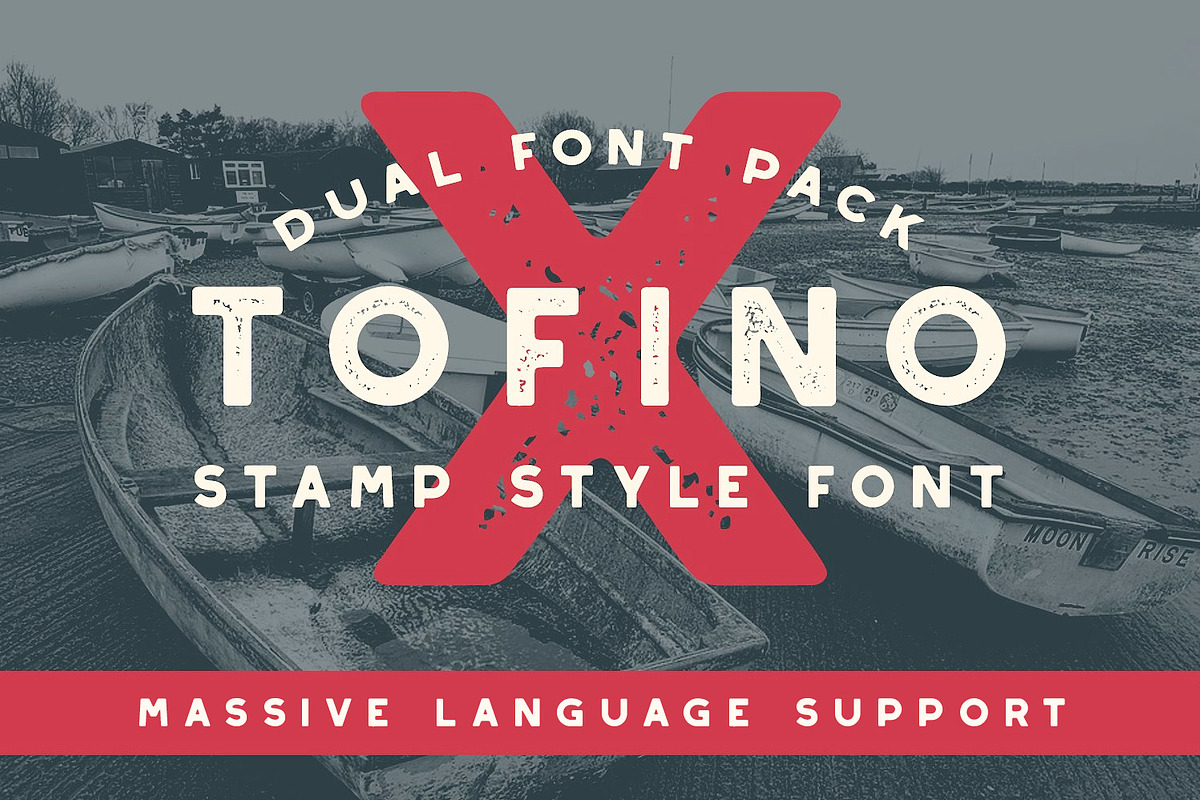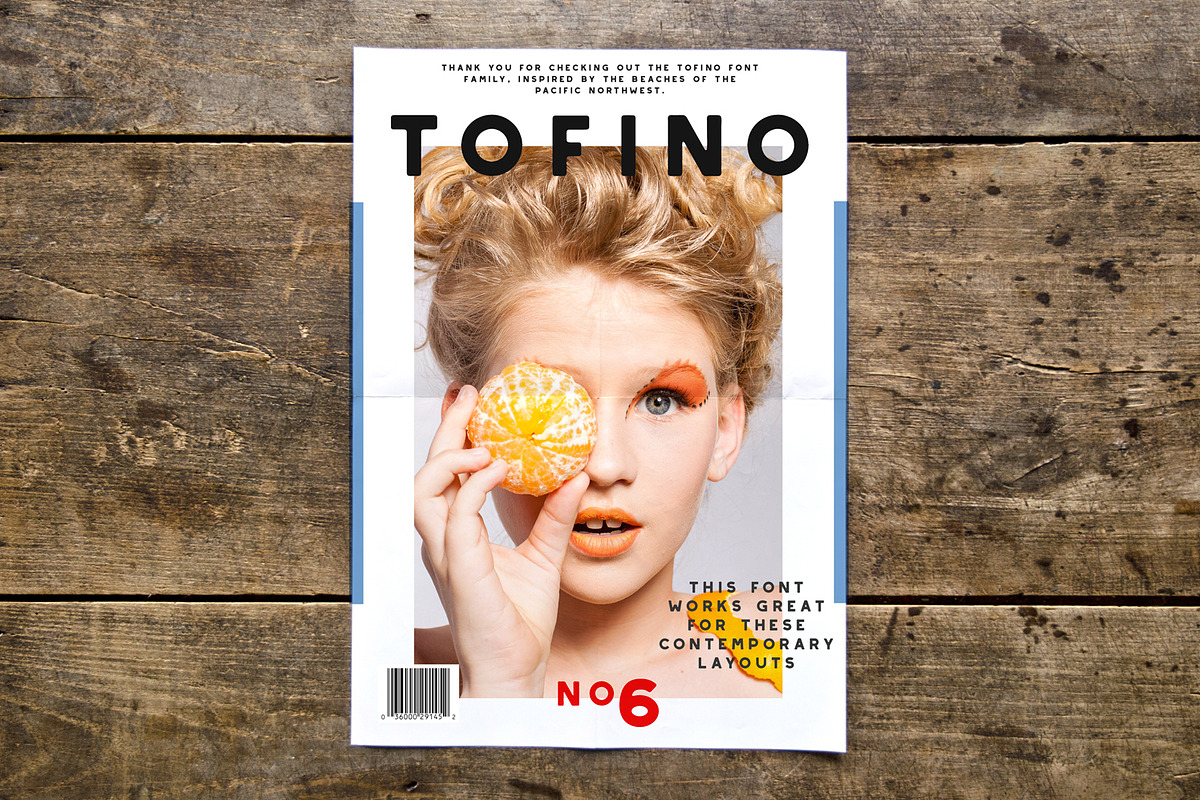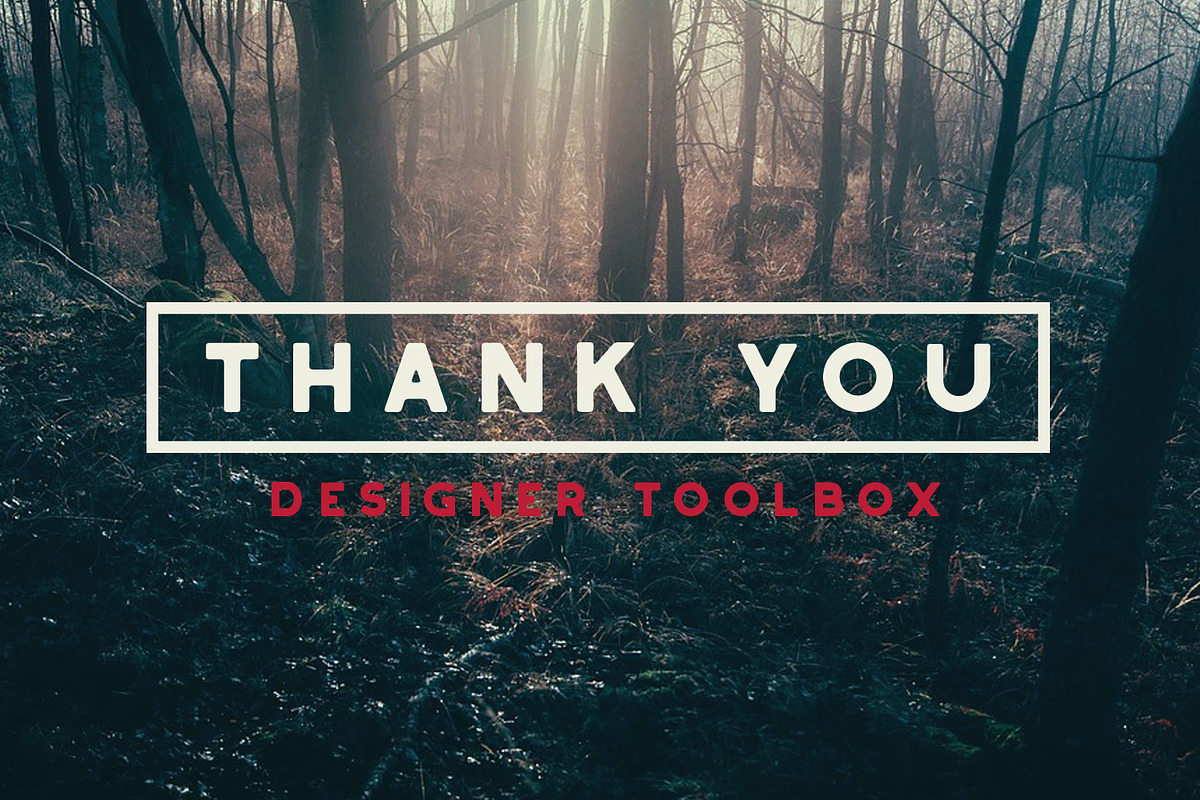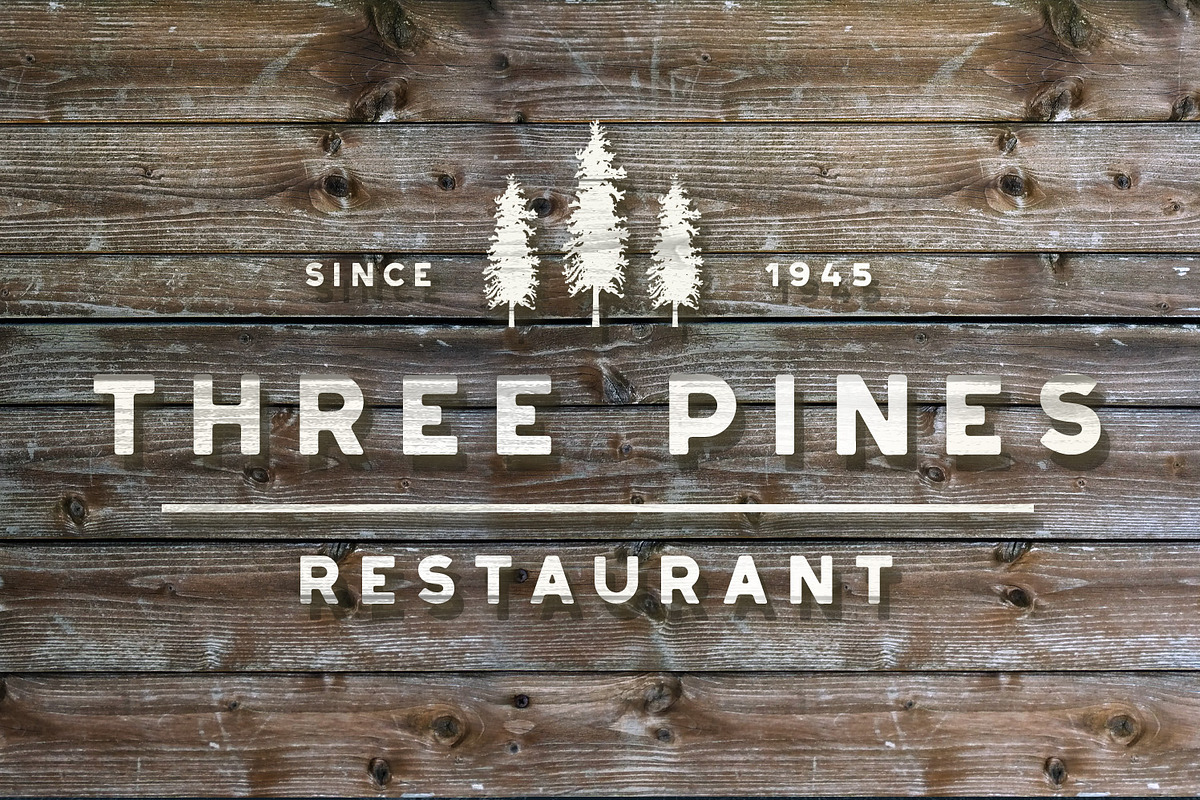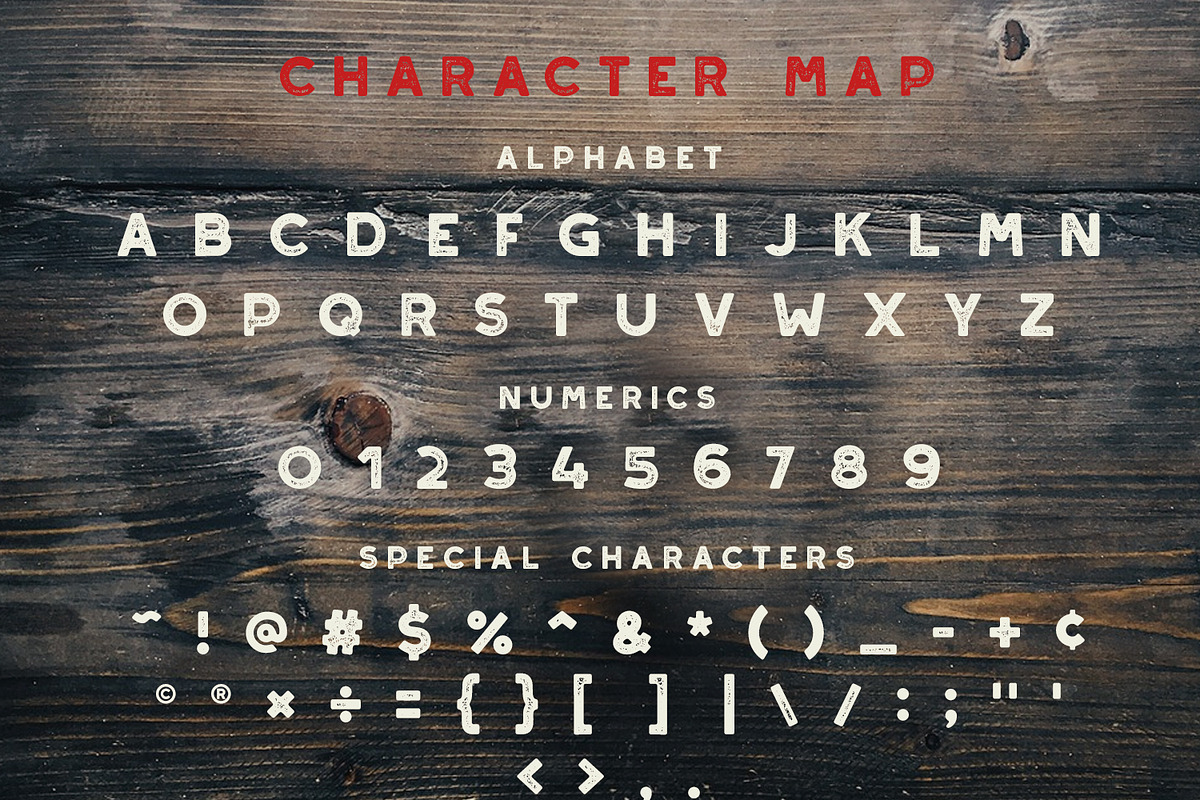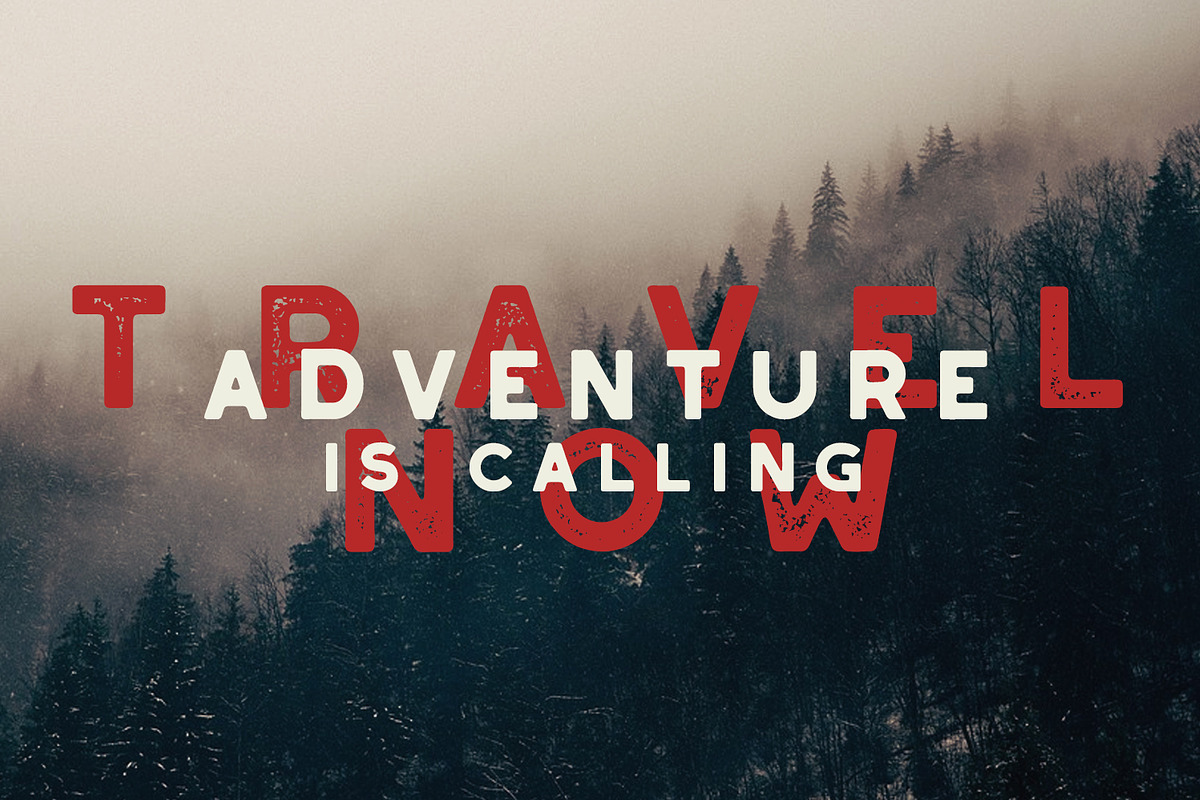
Tofino Font Family
Tofino is a family of two fonts, designed to work harmoniously. Both have rounded, imperfect edges to give the font more of an organic feel. A great deal of time was spent getting each letter perfect, along with kerning and adding special characters.
Tofino works great for large titles, as well as small text. It works great for posters and web banners, and compliments other fonts quite well.
-Grunge version: This version has a stamp/grunge effect, giving your designs a little more detail and texture. Great to use for titles. Included in .OTF and .TTF formats
-Regular version: This version has slightly rounded, imperfect edges to give the font a little extra character and more of an organic feel. Included in .OTF and .TTF formats
Language support - We've included a ton of additional characters, to cover a wide range of languages